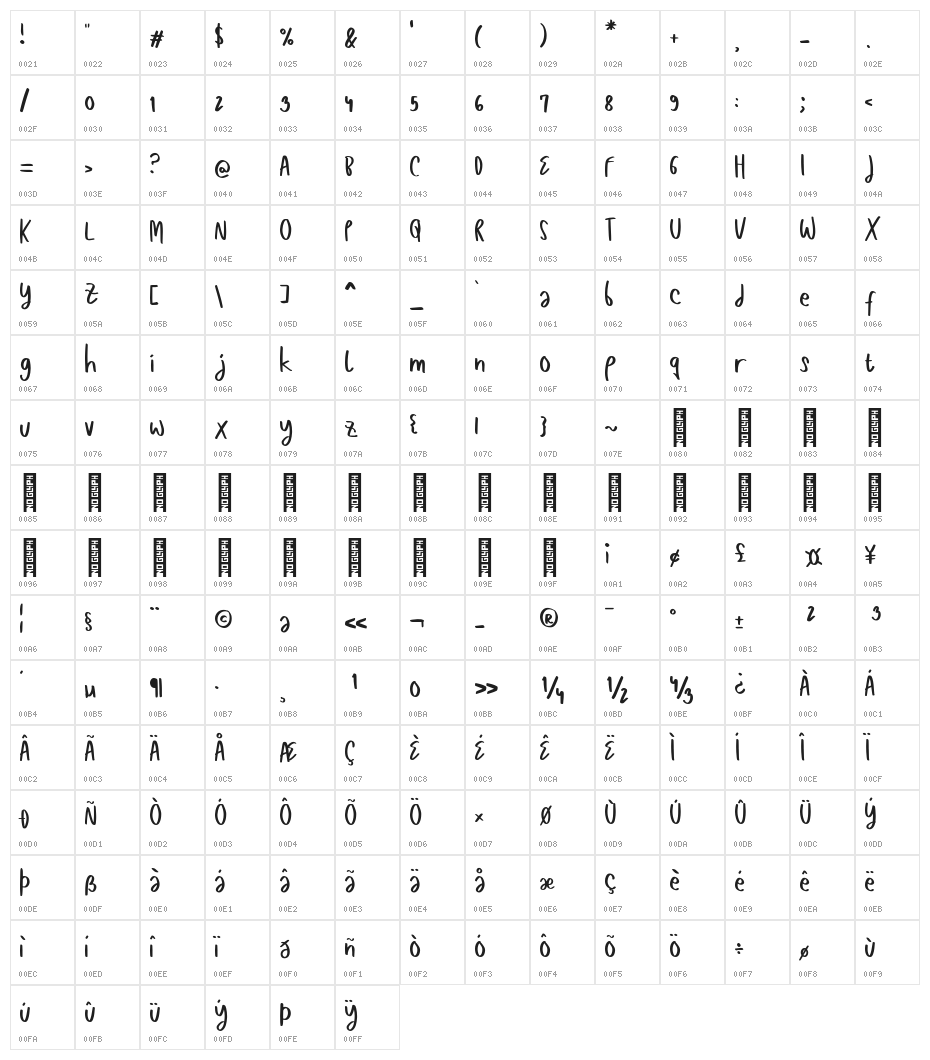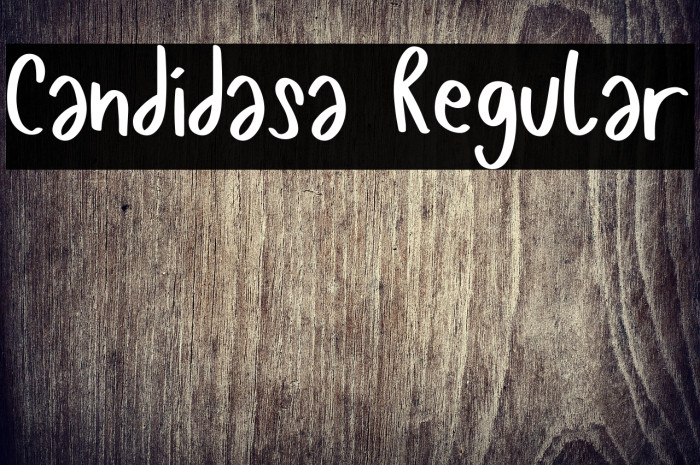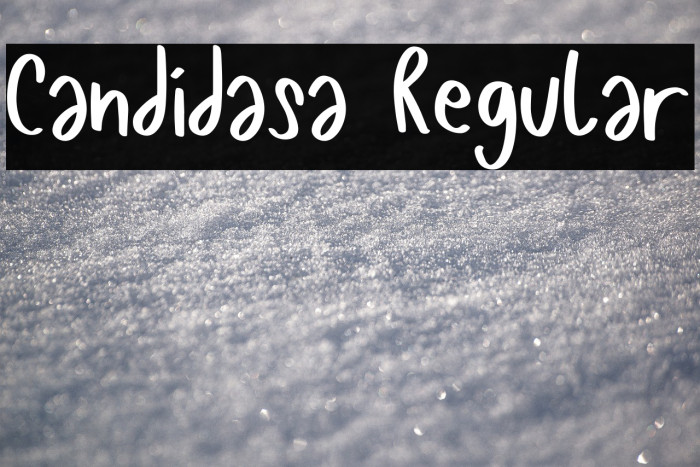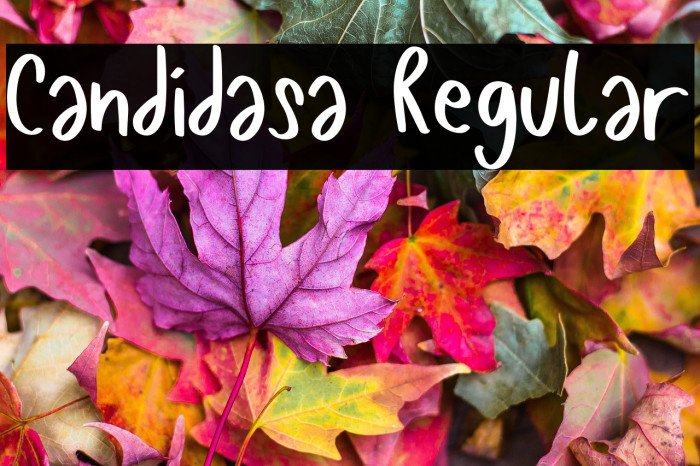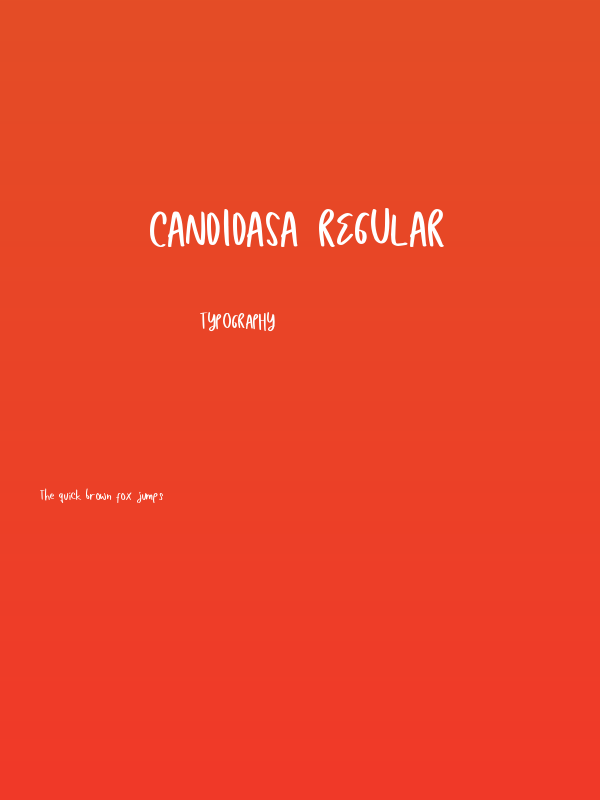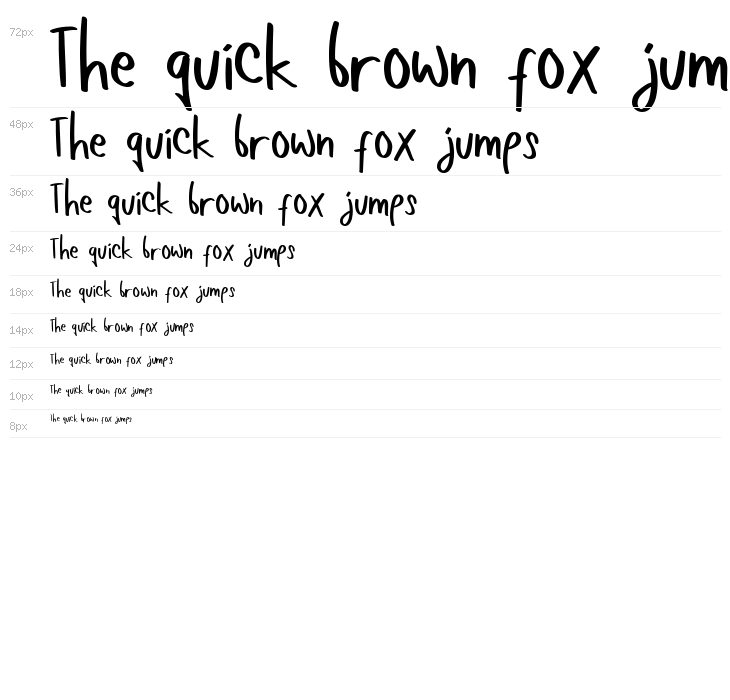
Candidasa Regular Font
Candidasa Regular Description
This font features a playful and casual handwritten style, characterized by its smooth, flowing curves and slightly irregular letterforms. The uppercase letters are bold and prominent, while the lowercase letters maintain a consistent rhythm with a touch of whimsy. The numerals are clear and easy to read, complementing the overall informal aesthetic. Special characters are well-integrated, maintaining the font's cohesive look. The strokes are moderately thick, providing good legibility without sacrificing the font's relaxed and friendly appearance.
| Use Case | Logos, Headlines, Social Media |
| Proposed Projects | Ideal for greeting cards, invitations, personal branding, and social media graphics. |